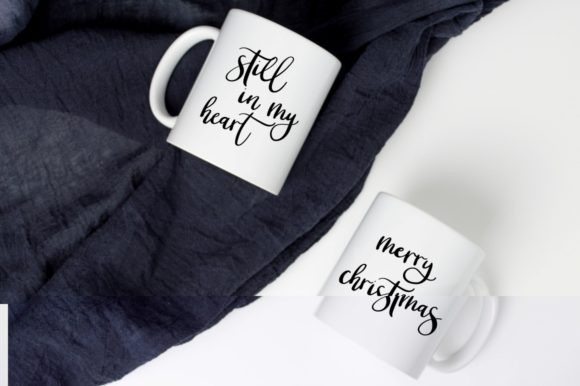
Blackpine Brush Font
Blackpine is handbrush font, hand-drawn typeface. It has a elegant, classy look and cool. It’s a great font for fashion, apparel projects, signature, album cover, logo, branding, magazine, social media, & advertisements, but also works great for other projects.